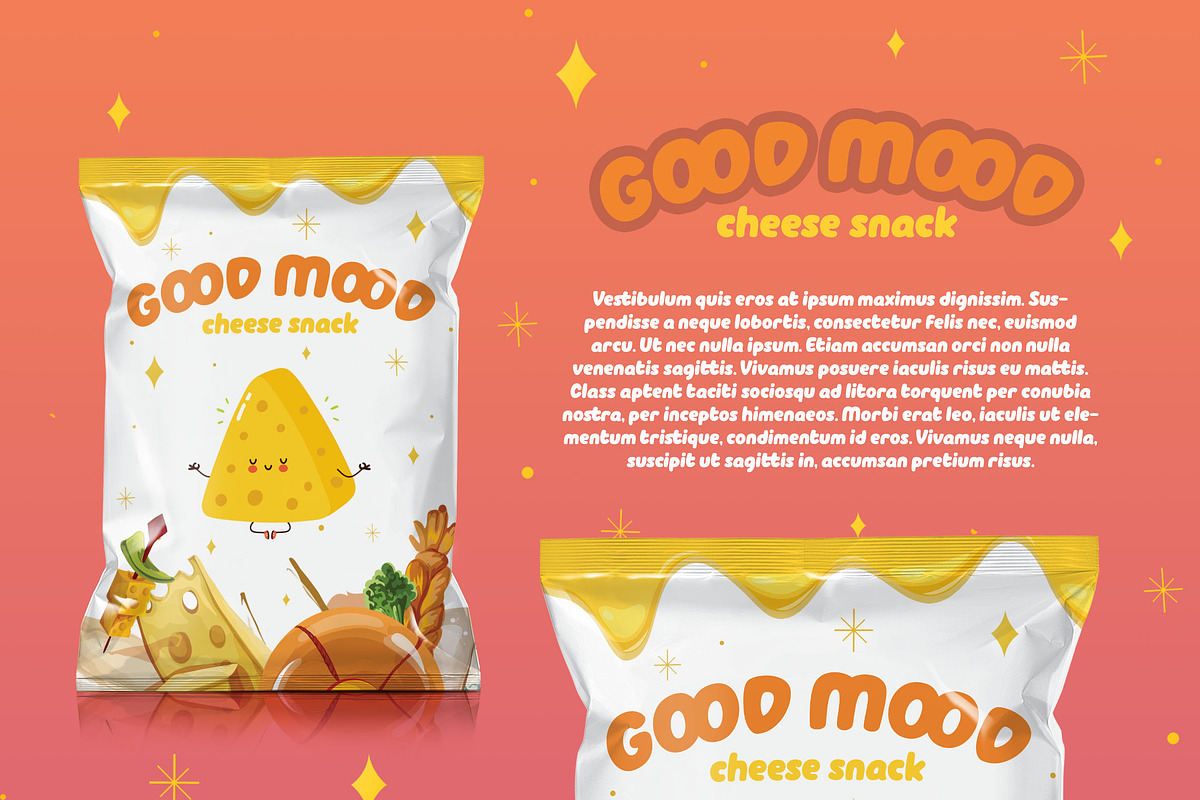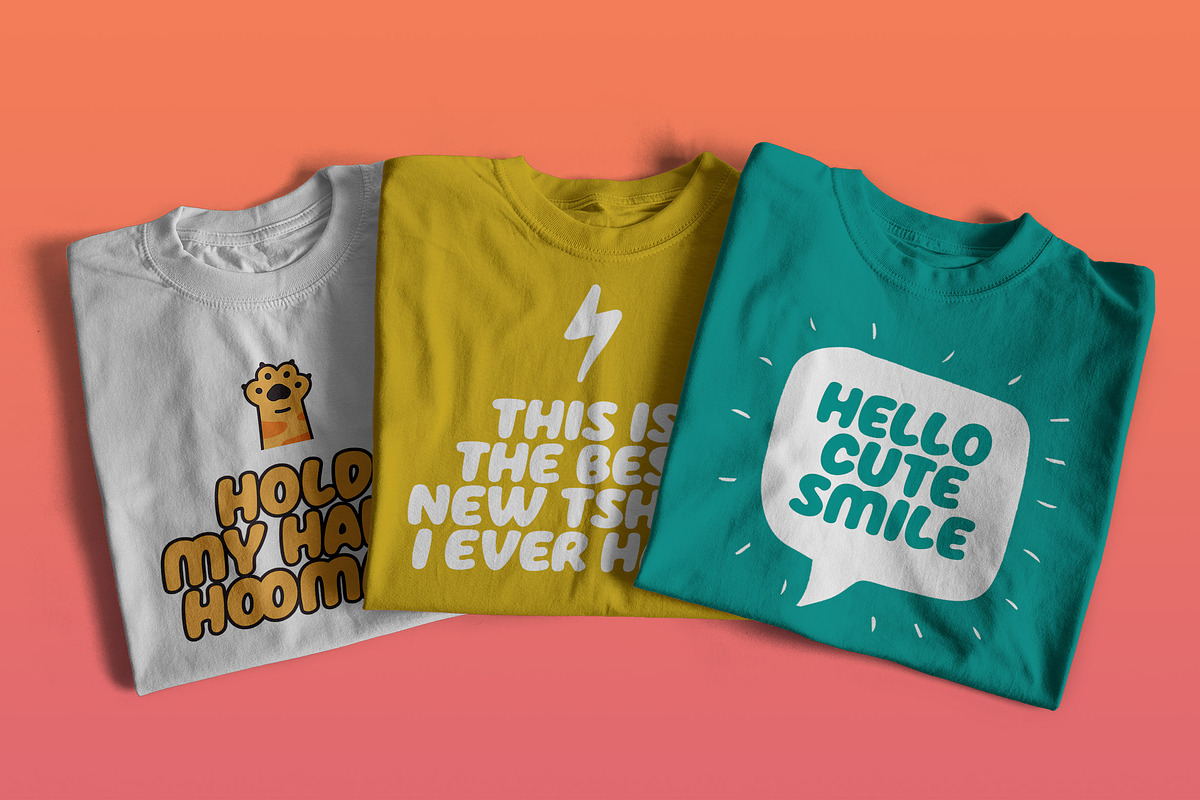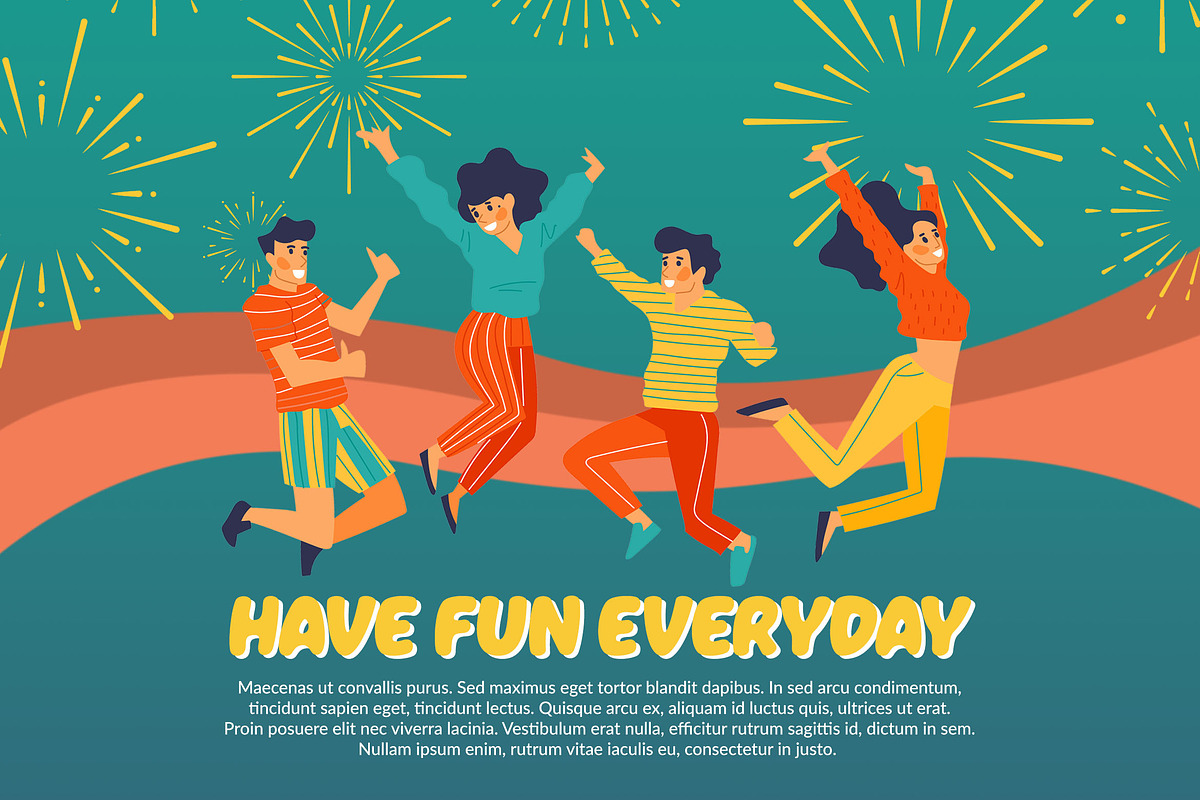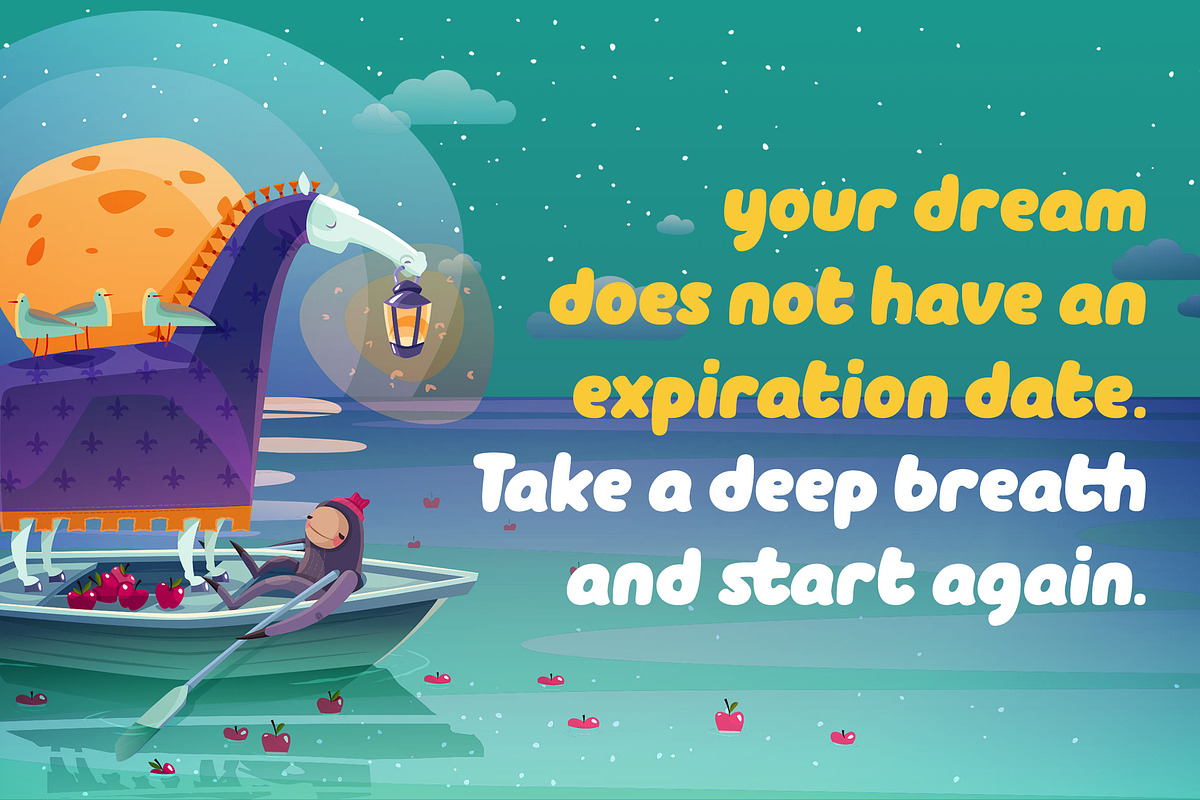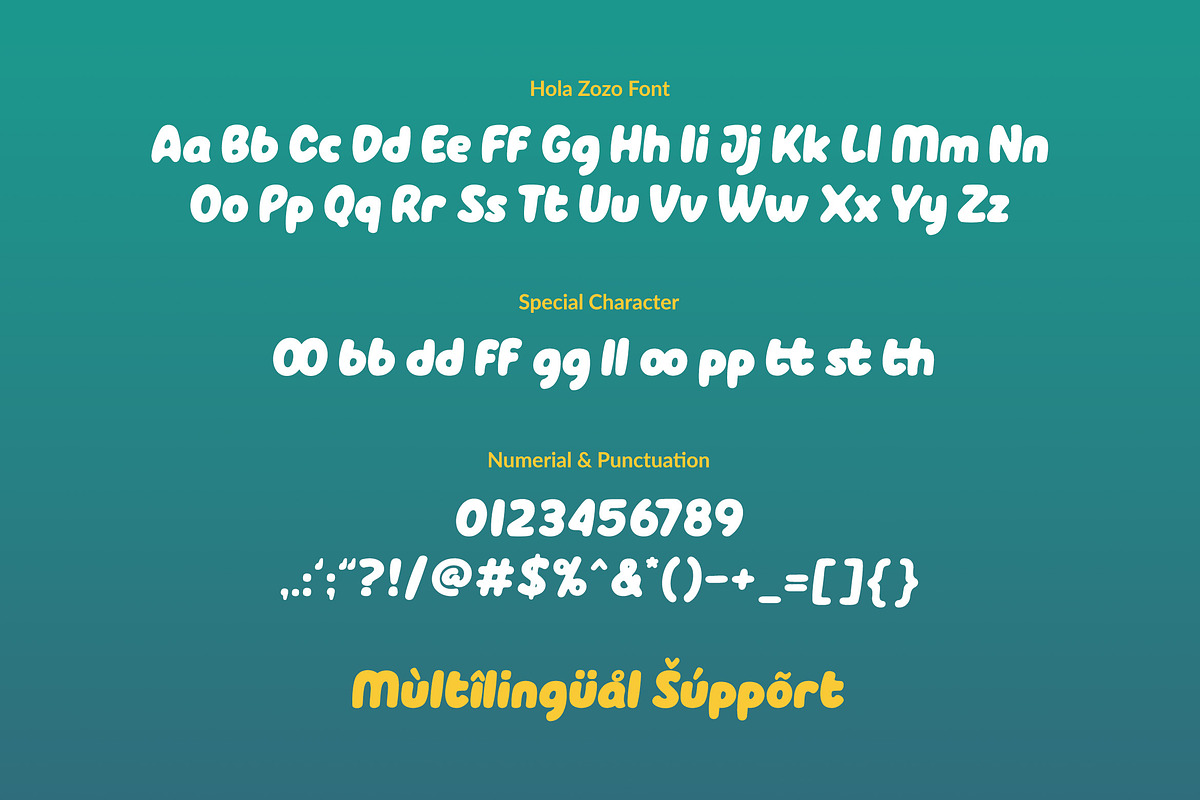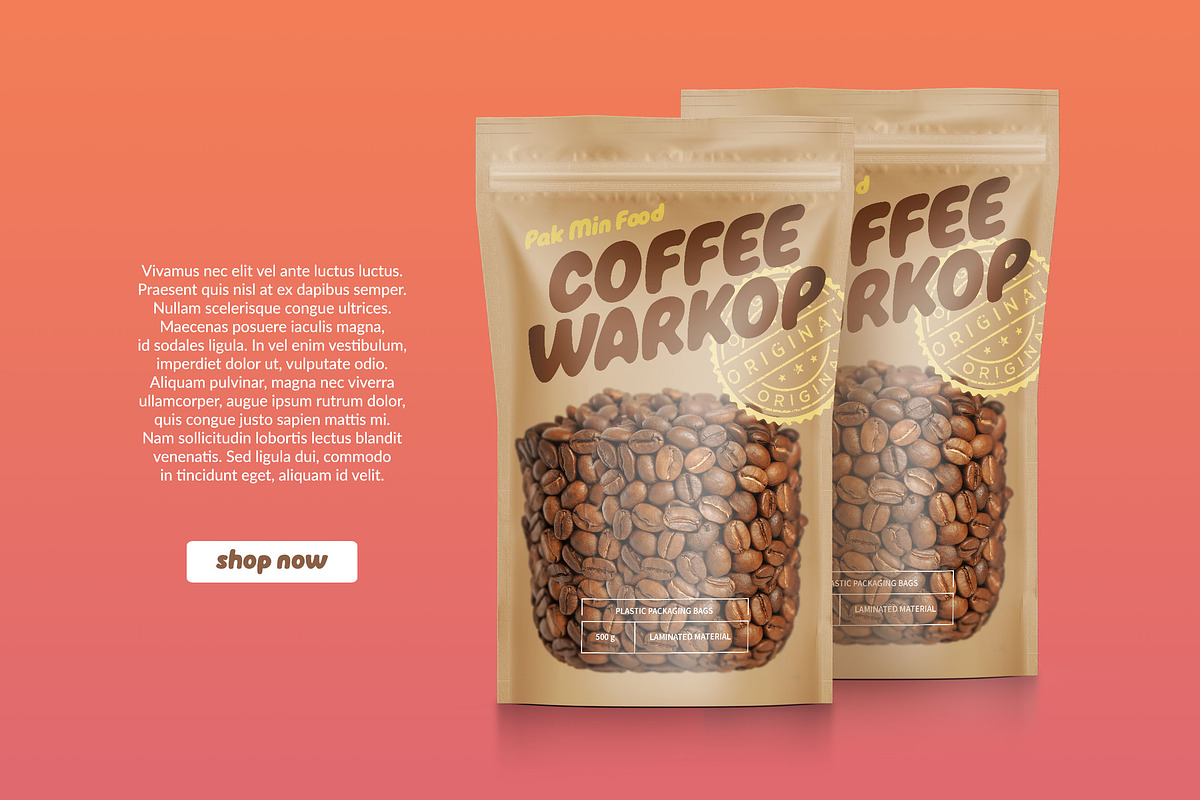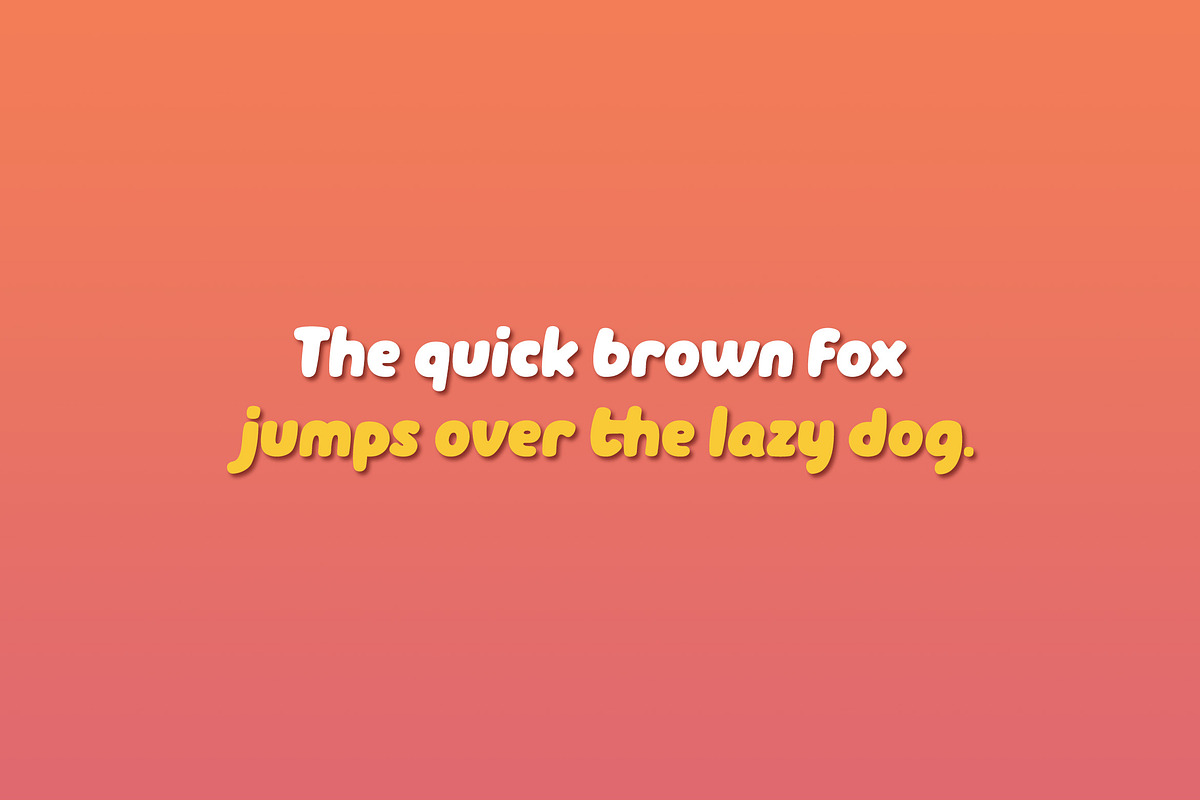
Hola Zozo ~ A Chubby Font
Hola Zozo is a slant chubby font. This font is fit for every design purposes. Why its called "Zozo"? Because Zozo is like 2020 :D
Have fun with this chubby font!